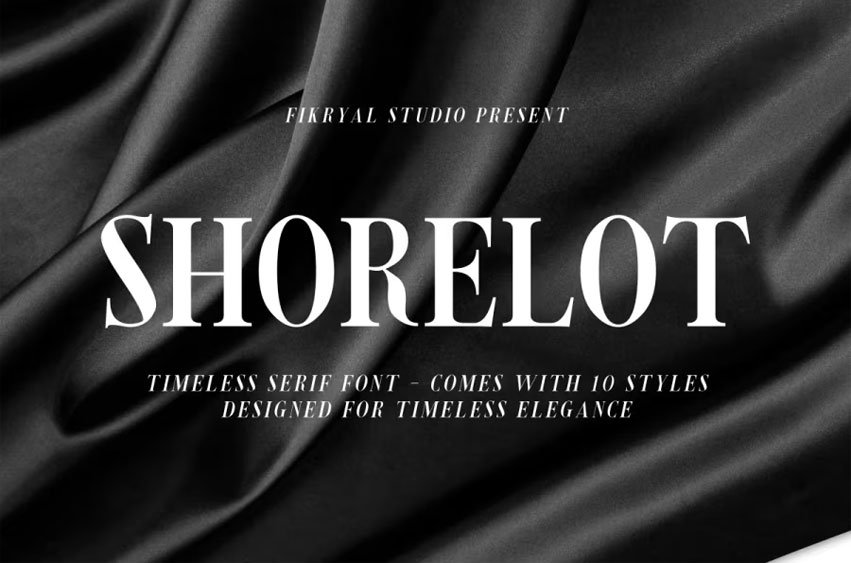
Shorelot Font, crafted with high attention to detail, provides the best design experience.
It is most suitable for poster design, headlines, quote writing, pamphlets, greeting cards, product packaging, book covers, logotypes, album covers, etc.